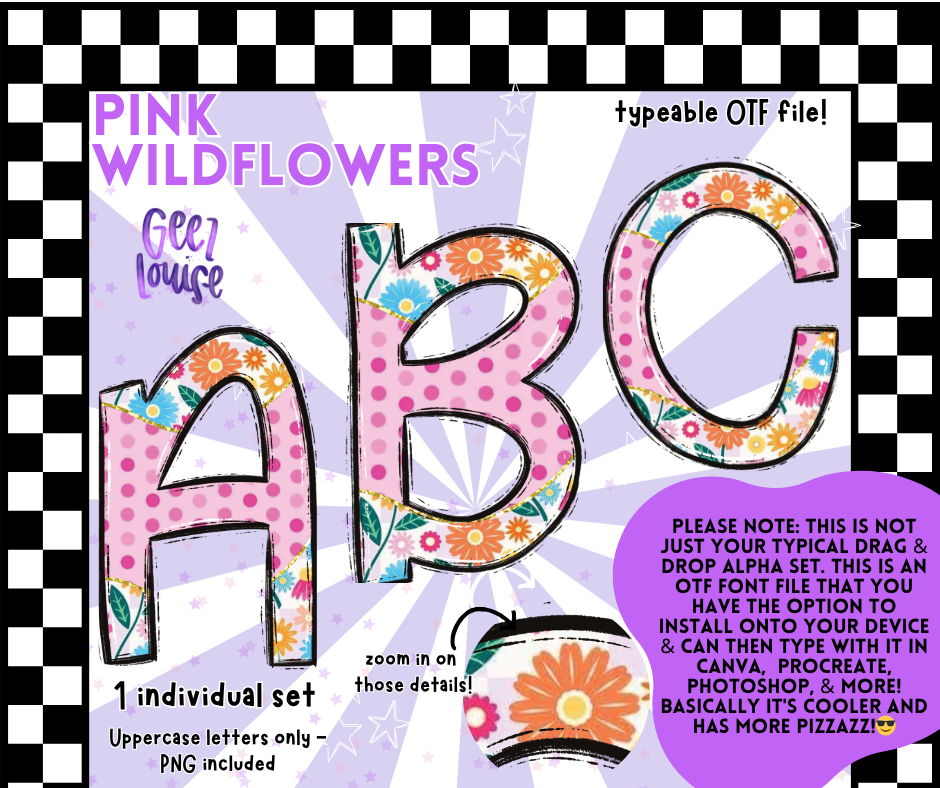
Say it with flowers… and make it typeable 🌸✨
Pink Wildflowers is a sunny, floral font with a pink polka dot base and a border bursting with wild daisies, marigolds, and blossoms in every color. Perfect for spring designs, feminine flair, or adding a little whimsy to any project!
🌼 Uppercase letters only
🌼 Playful detail with a hand-drawn feel
Bring the flower power to every design with this cute and colorful font!